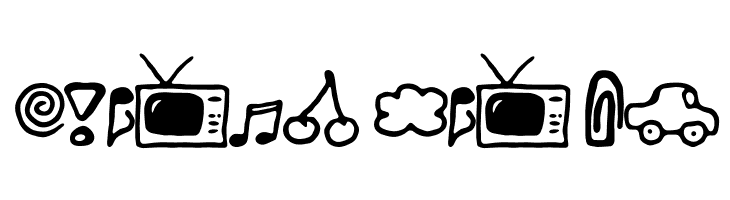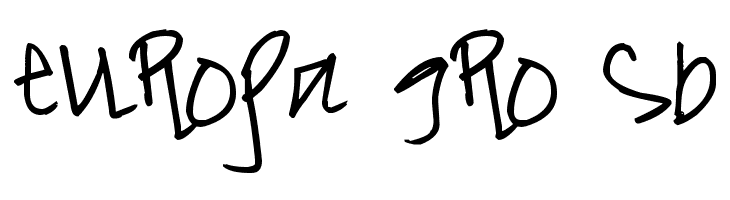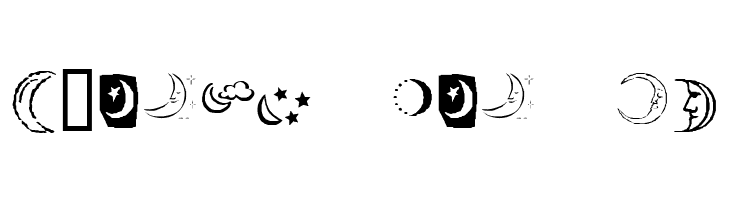
A playful, casual handwritten font with irregular strokes and a friendly appearance.
A decorative dingbat font with moon and night sky icons.
Eclectic hand-drawn dingbat font with playful icons and symbols.